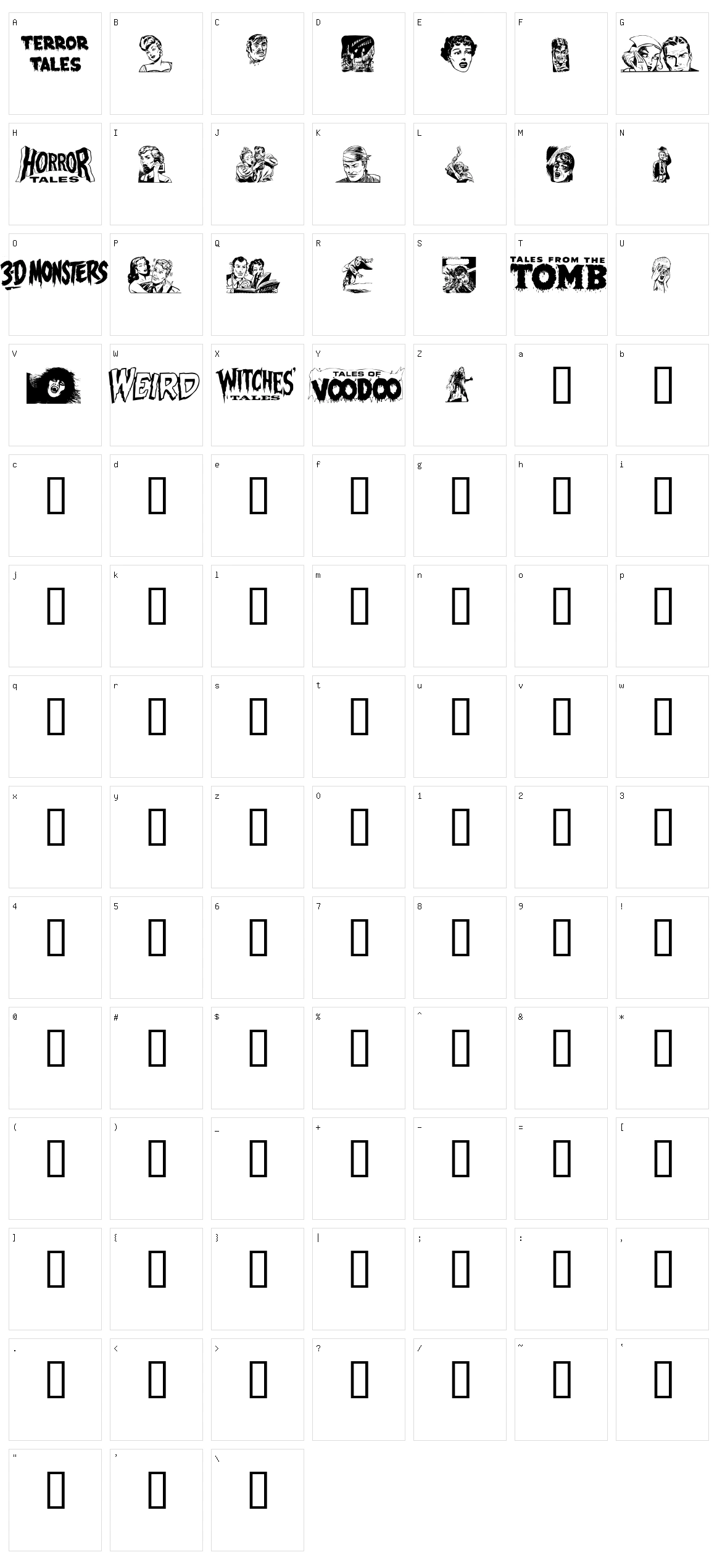
Well! Your Emperor's first font release in, what...six years? Yikes. And to think that I'd set out to make a font from Sinistar! (Which is coming, and not in six years, either.)
While at least one gruesome ghouly proved too darn attractive to ignore, most of the 26 images in this dingbat font are of the "normal human" variety. My intention here is to offer images which might resemble, in some way, the more prosaic and pedestrian "people" clipart images found in your more mundane and everyday dingbat fonts. The difference is that the people found in Eerie Pubs stories were NOT normal, and might provide that hint of otherworldly menace you just can't find in most office clipart. Hence the subtitle "The Victims".
You'll also find the logos for the main Eerie Pubs magazines, so that you may put them at the top of your documents and play at being Myron Fass himself, head of a vast empire of schlock publishing. May the ghosts watch over you and keep you safe, Mr. Fass, whereever you are.
The font is laid out as follows:
A - Terror Tales logo
B - B-movie dame
C - Cut-off head
D - Drowning man
E - "Eeewww!" girl
F - Fanatic Eerie Pubs fan
G - Gossipy Nurse
H - Horror Tales logo
I - "I hate him!" Girl
J - "Just gimme that!" Starving couple
K - Krafty surgeon
L - "Loose shit everywhere!" Maniac
M - Man, screamin'
N - "Nice day t'day, innit?" Salesman
O - 3D Monsters logo
P - "Please don't kiss me!" Man who knows Eerie Pubs gals!
Q - "Quick! Turn to page 302!" Panicky couple
R - Running guy (probably not going to make it, either.)
S - Suicide panel - fill in his final thought yourself!
T - Tales From The Tomb logo
U - Ugly girl - Don't judge her, society!
V - Vampire - Sorry, just too scary not to use.
W - Weird logo
X - Witches' Tales logo
Y - Tales of Voodoo logo
Z - Zombie